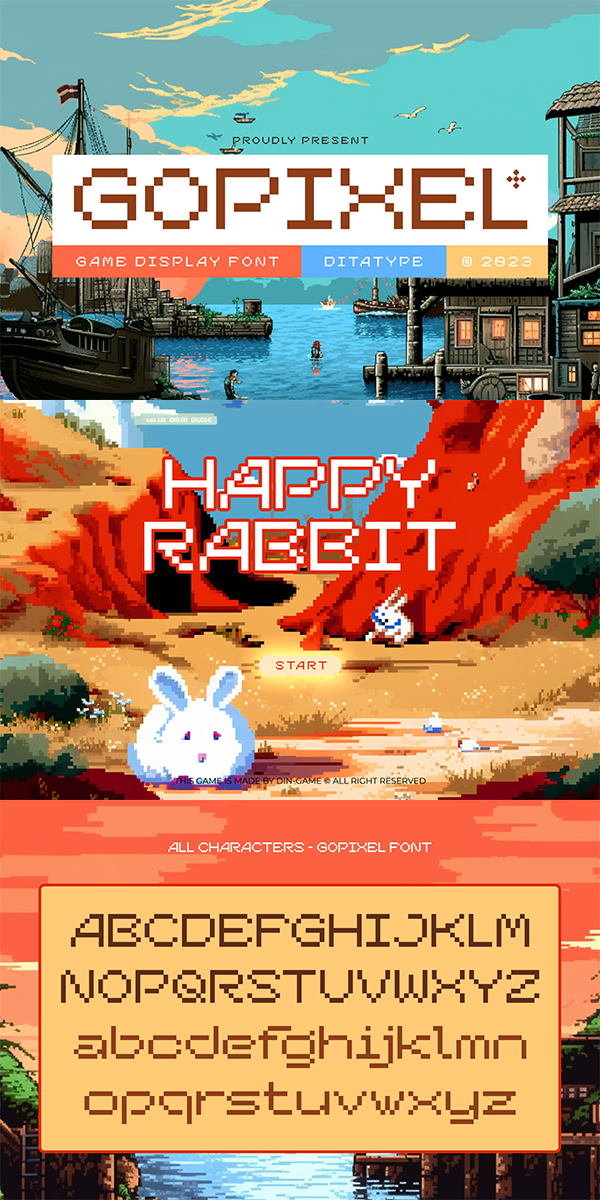
Go Pixel Font
About Go Pixel
Go Pixel is an exciting game-themed display font designed in uppercase, capturing the essence of retro pixel art. The consistent proportions of this font create a harmonious and balanced visual experience. Each uppercase letter is crafted with precision, ensuring uniformity and maintaining the overall aesthetic appeal. This design choice guarantees that every character fits seamlessly together, resulting in a cohesive and visually pleasing typographic composition. The uneven borders of Go Pixel add a touch of vintage charm and quirkiness to the font. Each letter is outlined with varying thickness, mimicking the imperfections found in retro pixel art. This unique feature gives the font a distinct personality and captures the nostalgia of classic video games. With low contrast, it embraces a softer and more subtle approach to readability. The slight variation in stroke width allows for a smooth and comfortable reading experience. While the low contrast may be unconventional, it enhances the overall retro feel of the font, immersing your audience in the world of classic gaming. Enjoy the available features here.